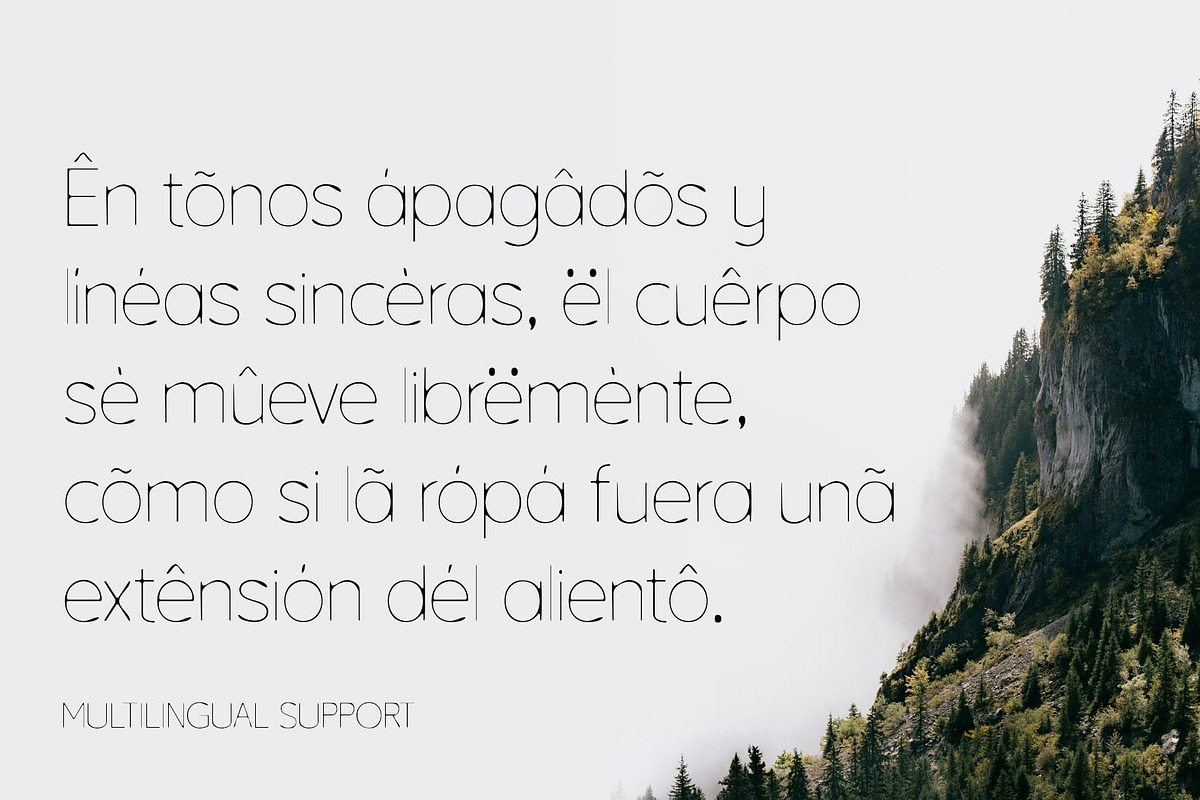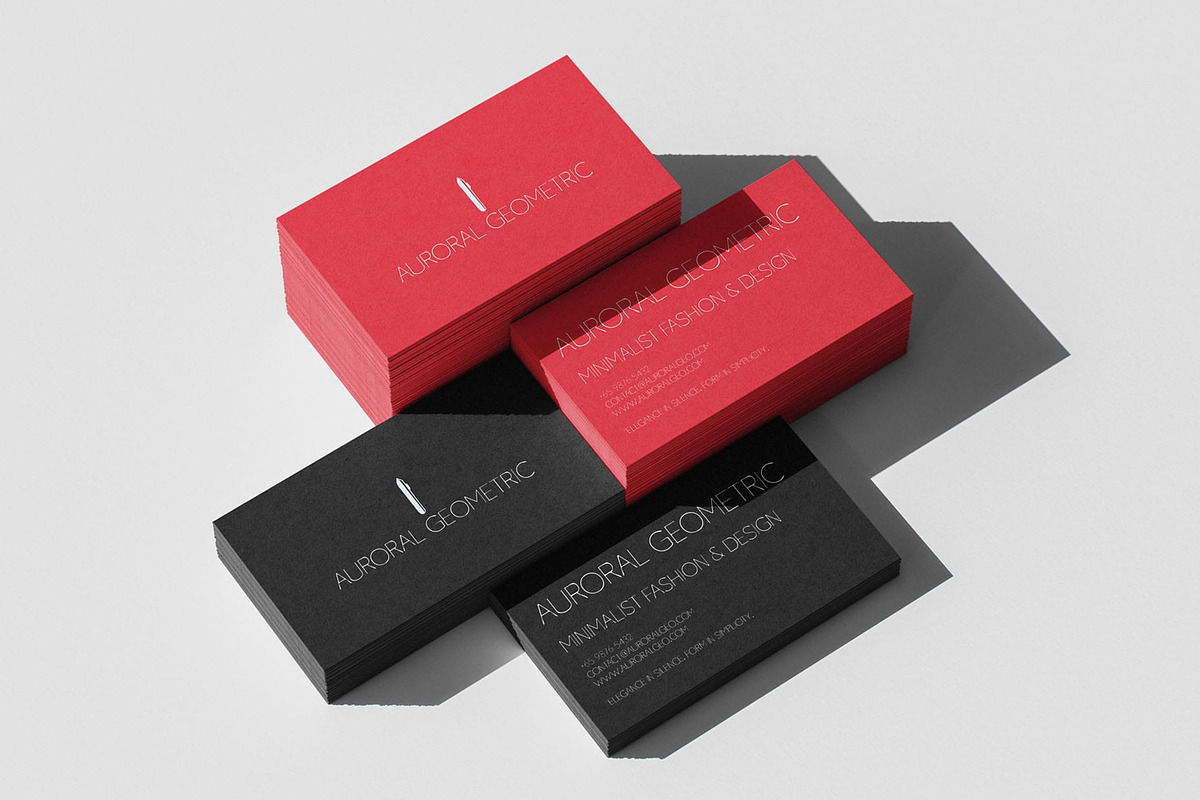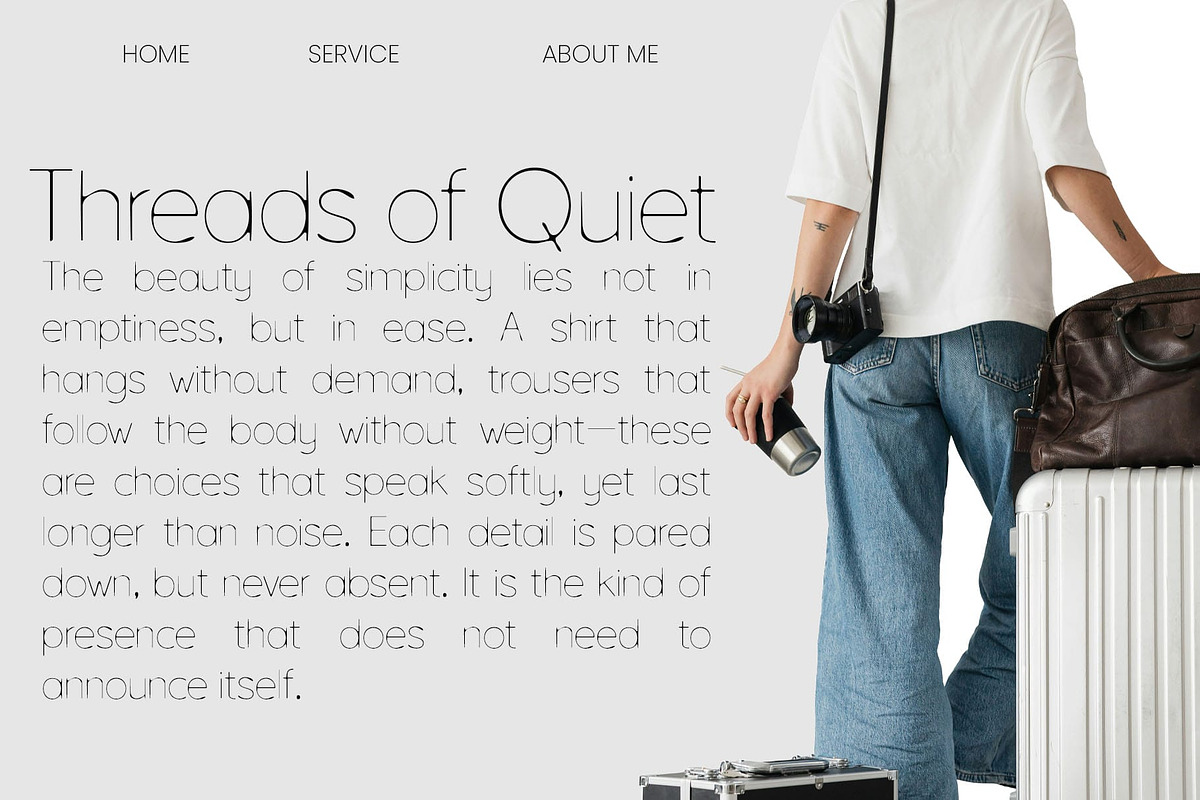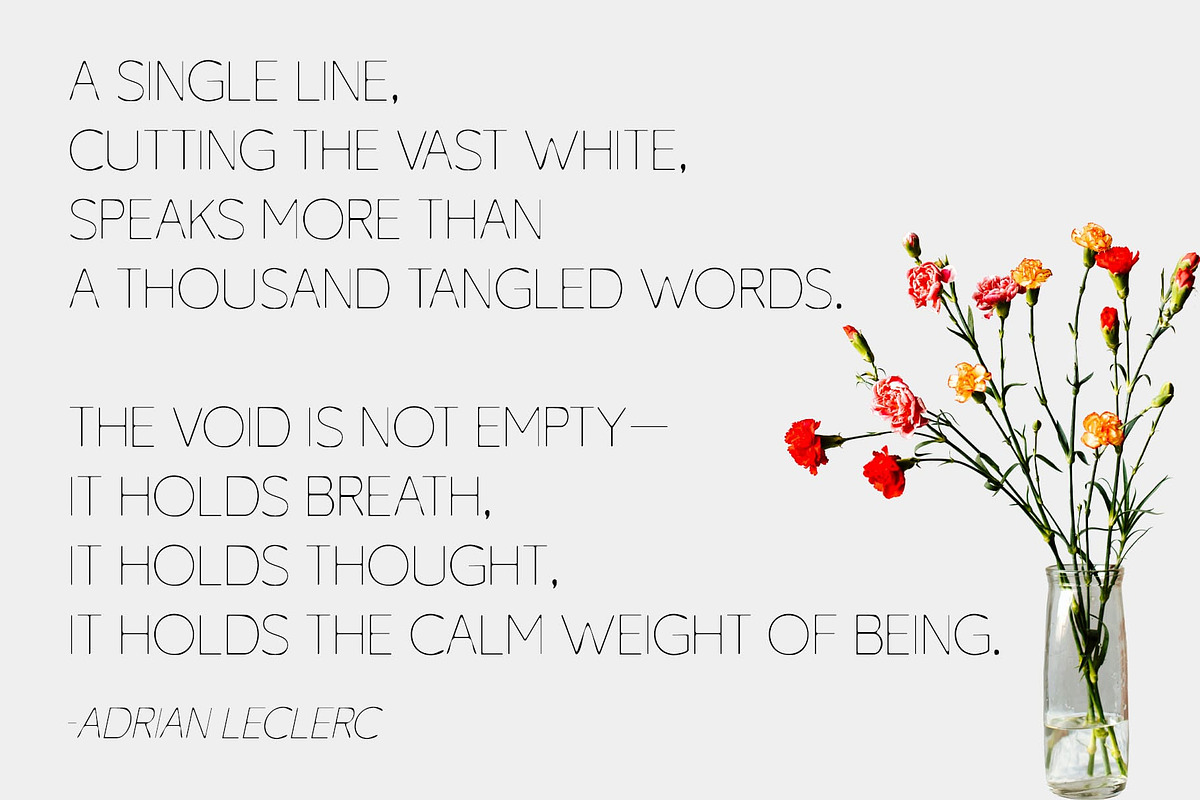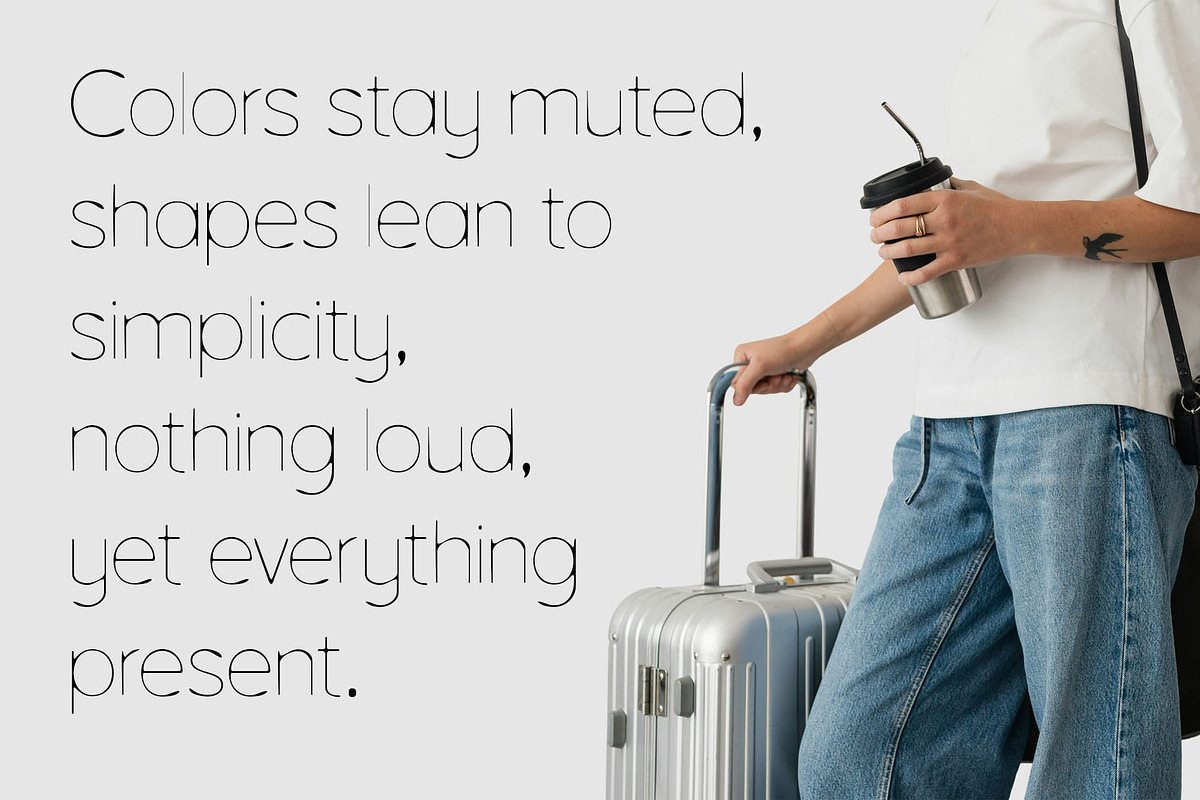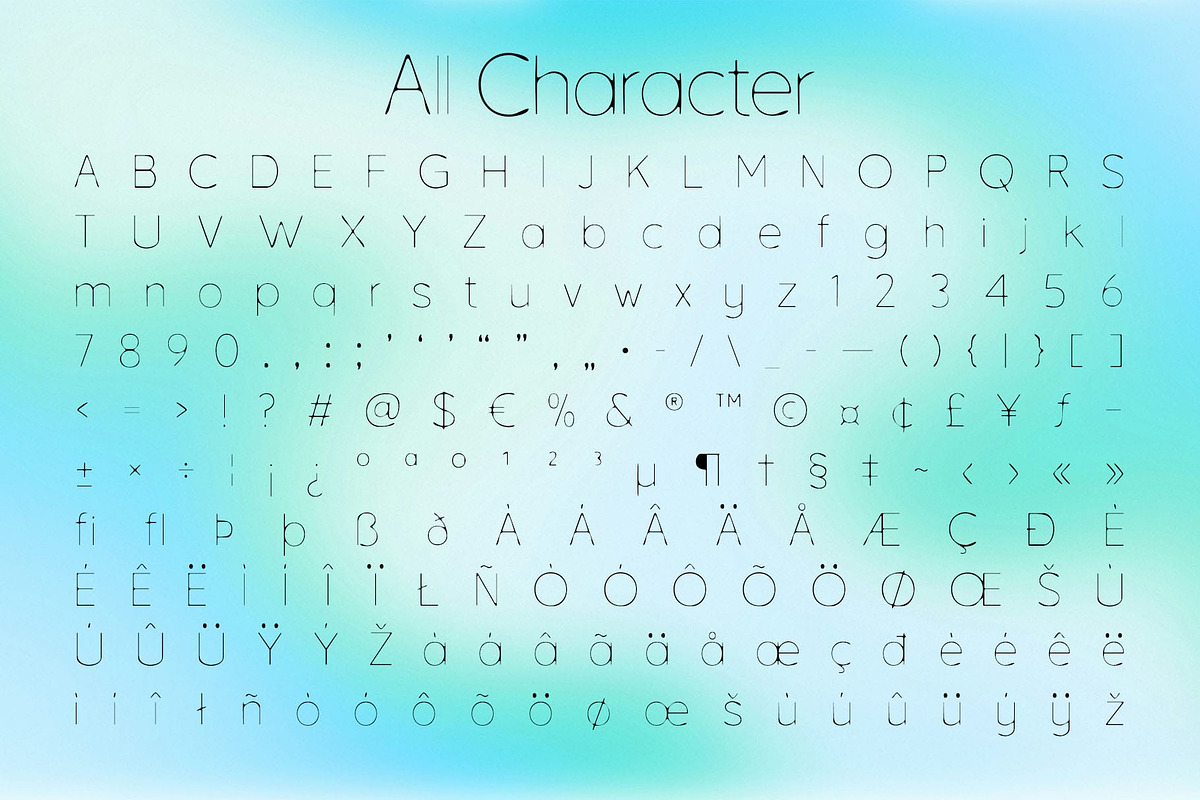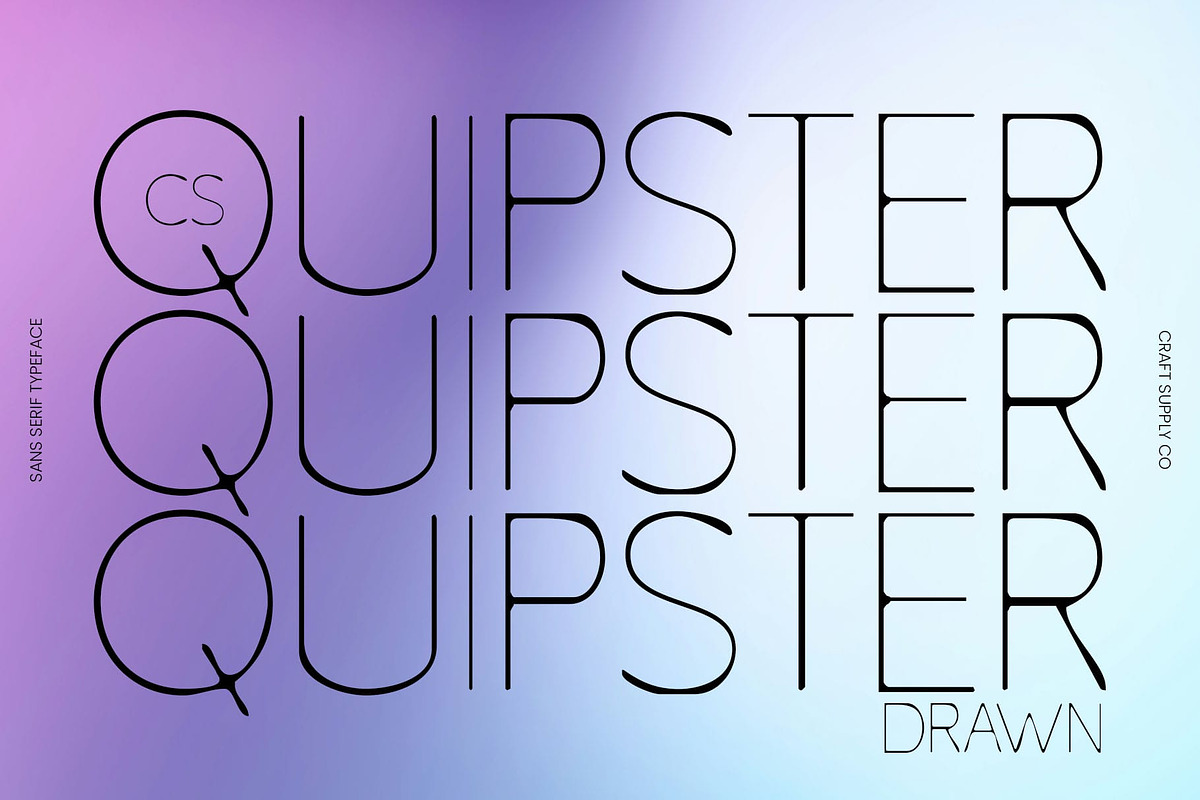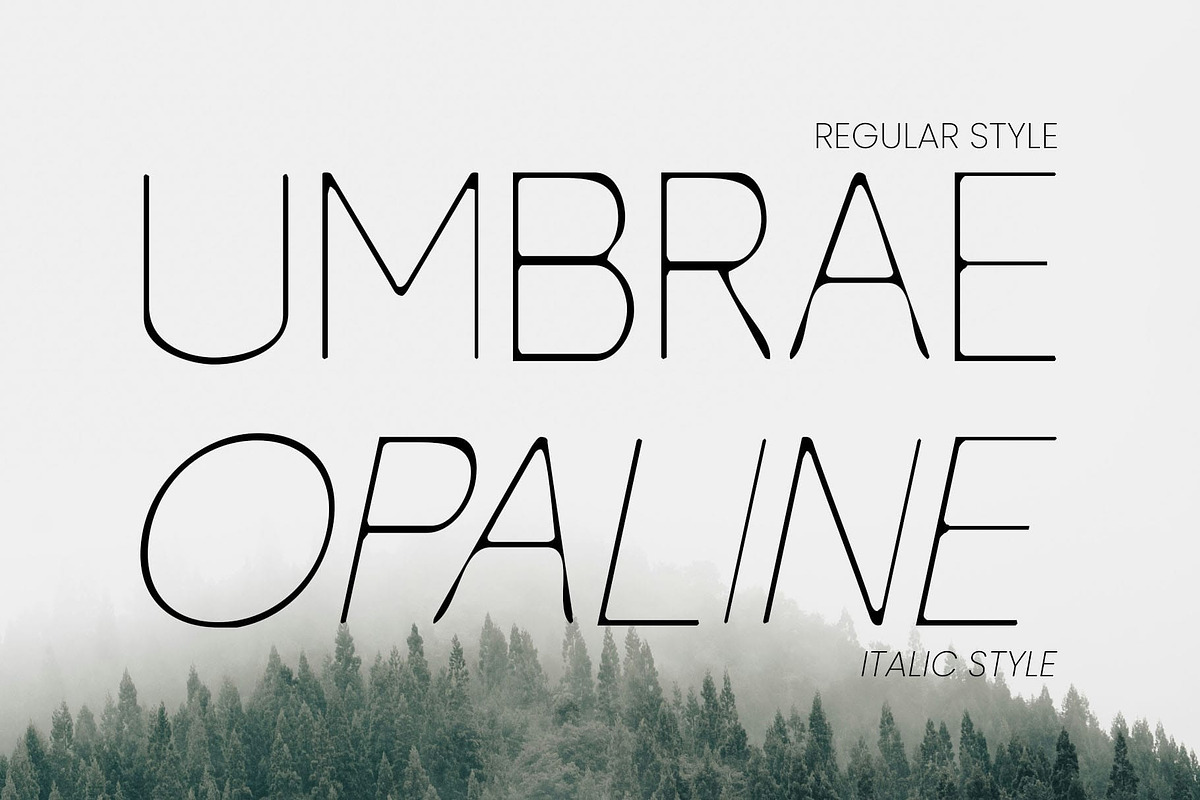
CS Quipster Drawn
CS Quipster Drawn – Geometric Thin Sans Serif with Handmade Expression: Where Precision Meets Creative Softness
Geometric Thin Sans Serif Design This is a geometric thin sans serif font that balances clarity and sophistication. With its slender proportions and precise structure, it delivers a clean, modern aesthetic perfect for contemporary design projects.
Handmade Detailing for Character What sets this font apart is its subtle handmade detailing, which softens the rigid geometry and adds warmth to its form. This artisanal touch gives the typeface personality, making it stand out while retaining professional appeal.
Ideal for Branding and Editorials From branding and digital projects to refined editorial layouts, this font adapts seamlessly. Its thin letterforms make it suitable for minimalist compositions, while the drawn texture provides enough depth to remain engaging across different platforms.
Precision and Creativity in Balance This font is more than just a thin geometric sans serif it’s a statement of precision elevated by artistic flair. It bridges the gap between structural clarity and human creativity, ensuring your designs communicate professionalism with personality.